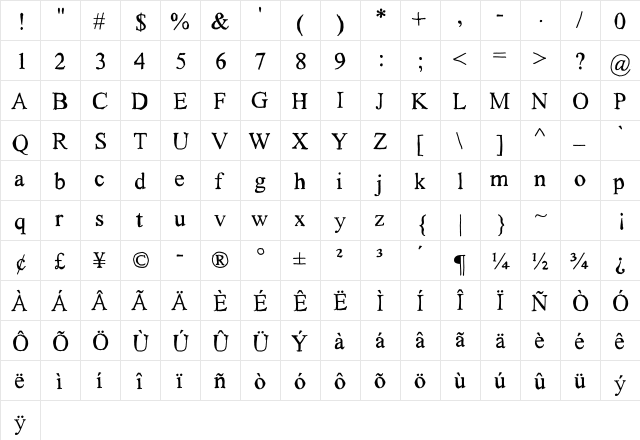
Subway Haze Regular
Design Context for Subway Haze Typeface
Subway Haze offers clean, dependable letterforms without strong stylistic allegiance, making it a practical choice for designers who need flexibility.
Pro Tip: Use Subway Haze in both headline and body roles to test its range before committing to a single application.